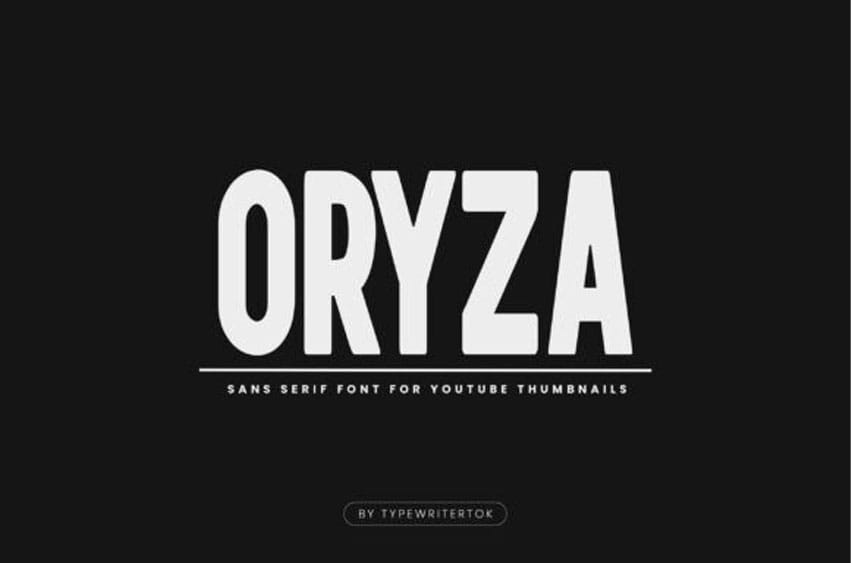
Oryza Font is A Bold Sans-Serif Font for Powerful Visuals. ORYZA is a clean, bold, and impactful sans-serif font crafted for modern content creators.
Designed especially for YouTube thumbnails, posters, headlines, and attention-grabbing visuals, ORYZA stands tall with confident letterforms and strong readability. Perfect for digital creators, editorial layouts, social media graphics, or any design that needs clarity and authority in every word.